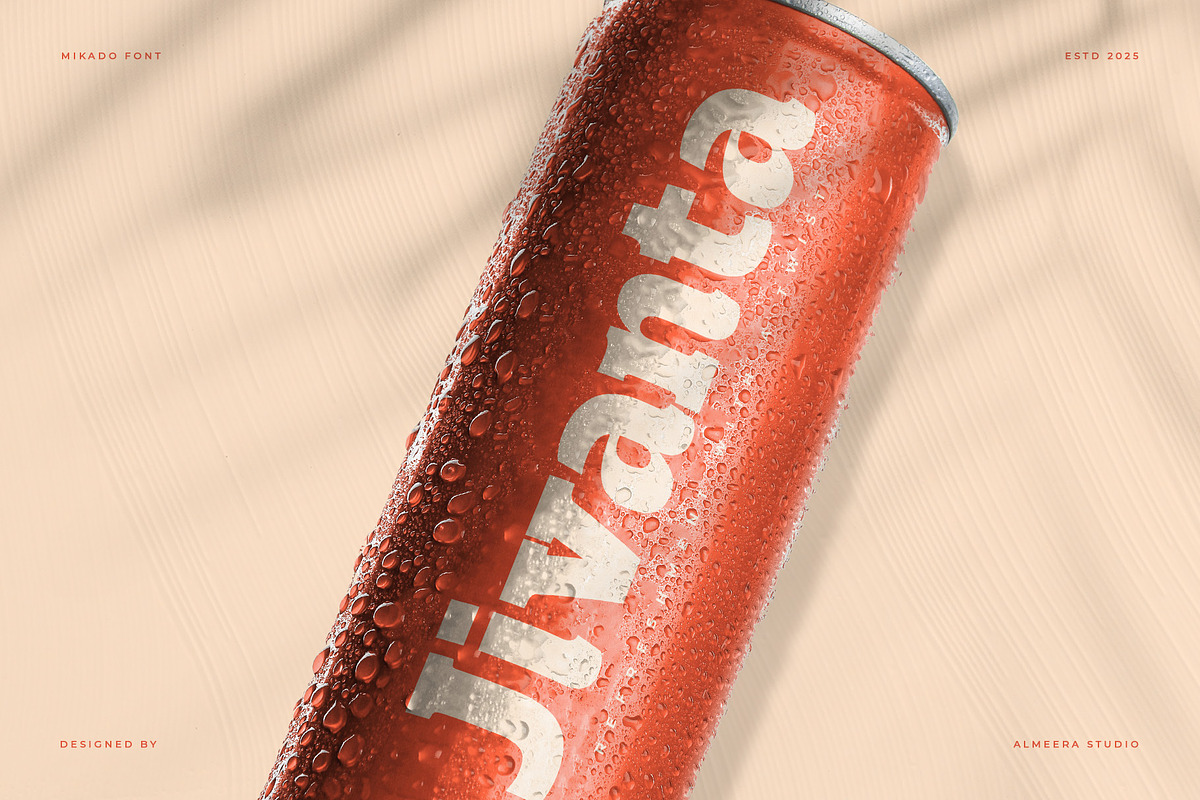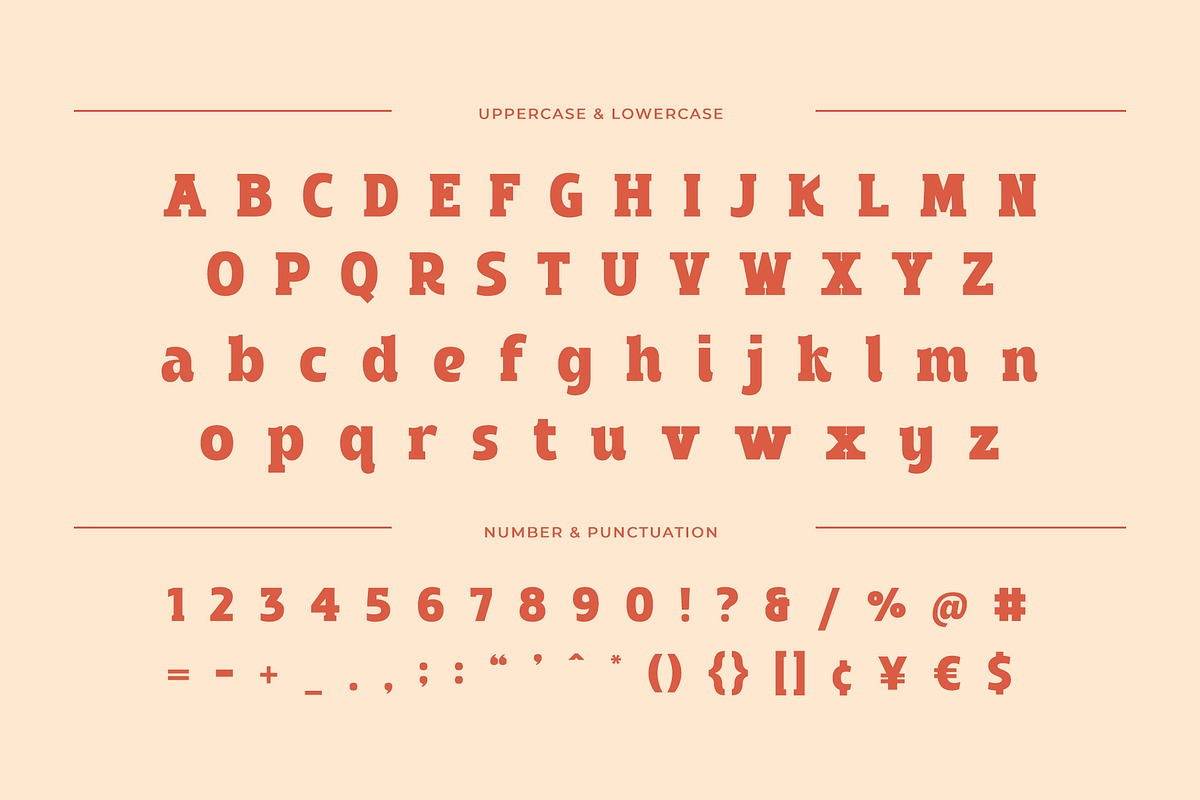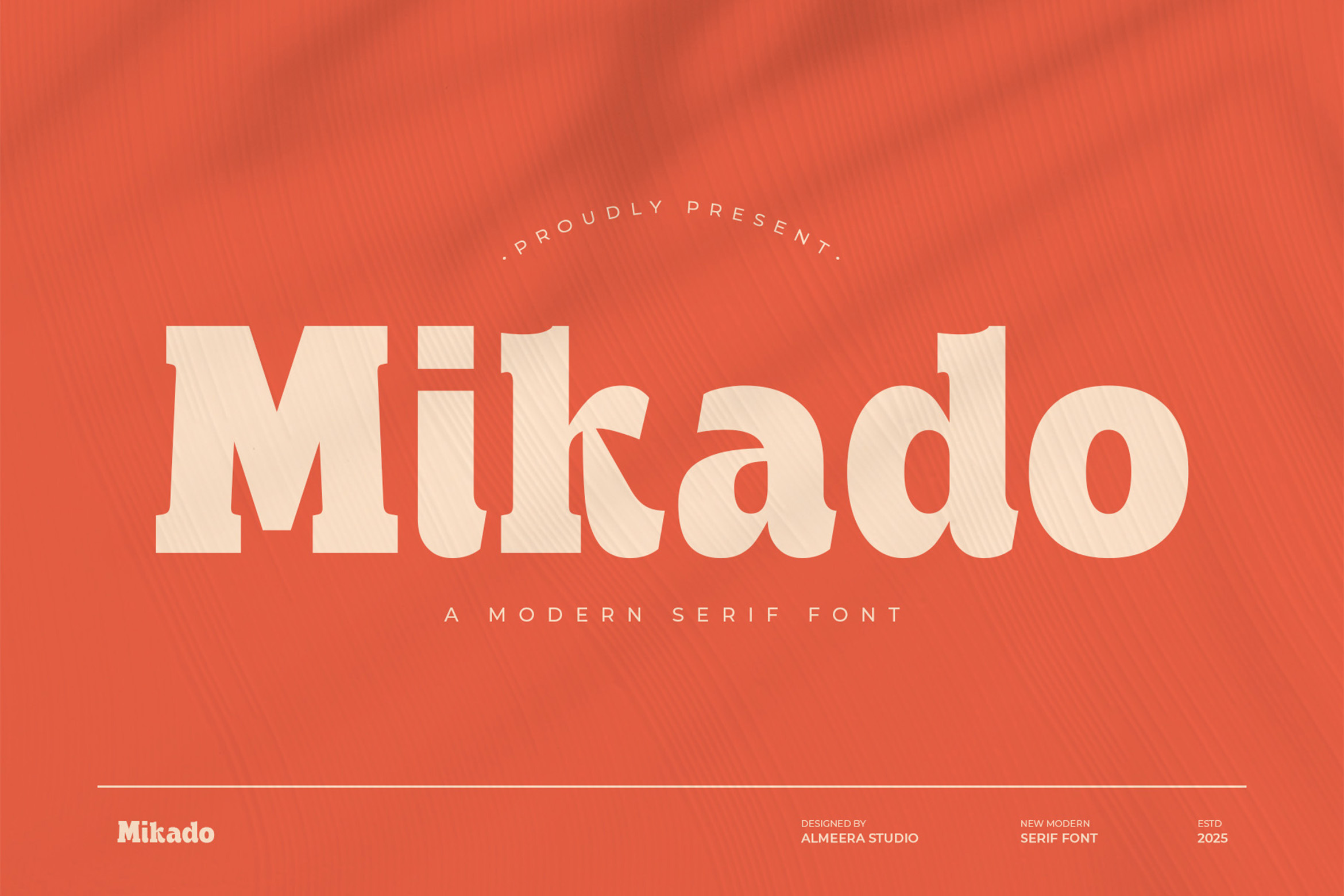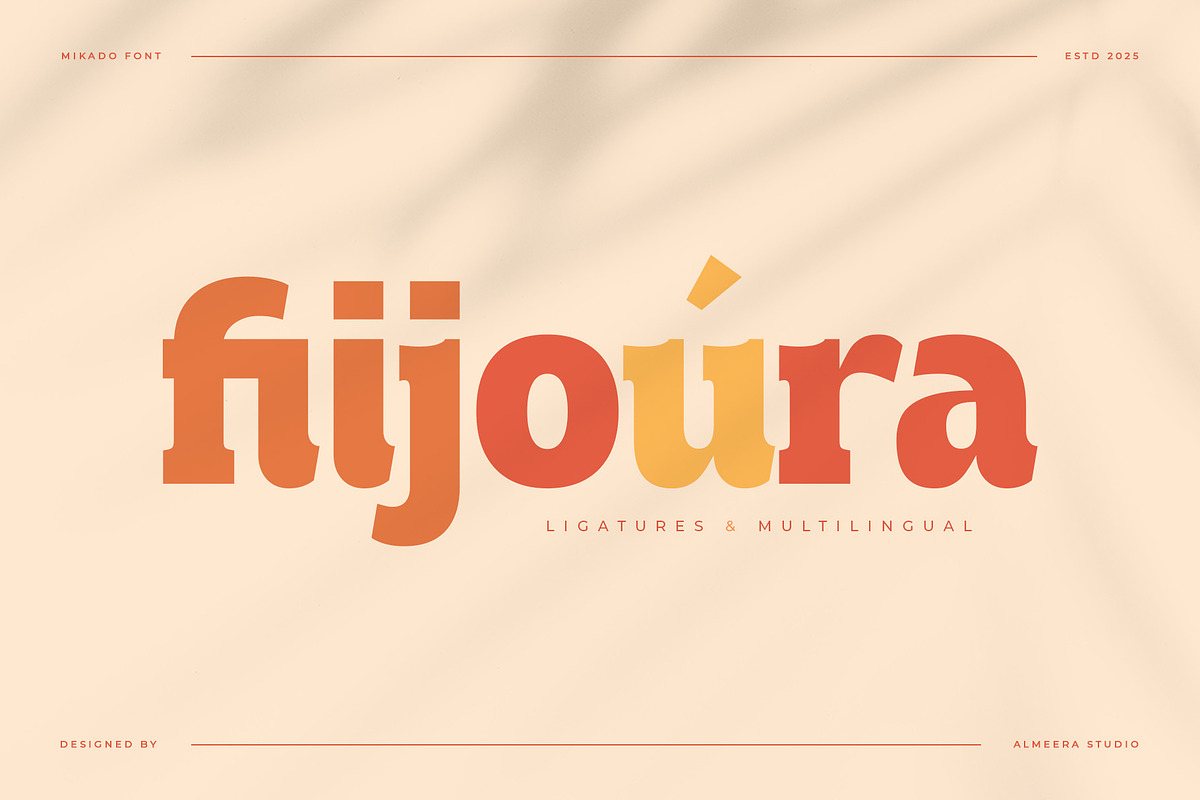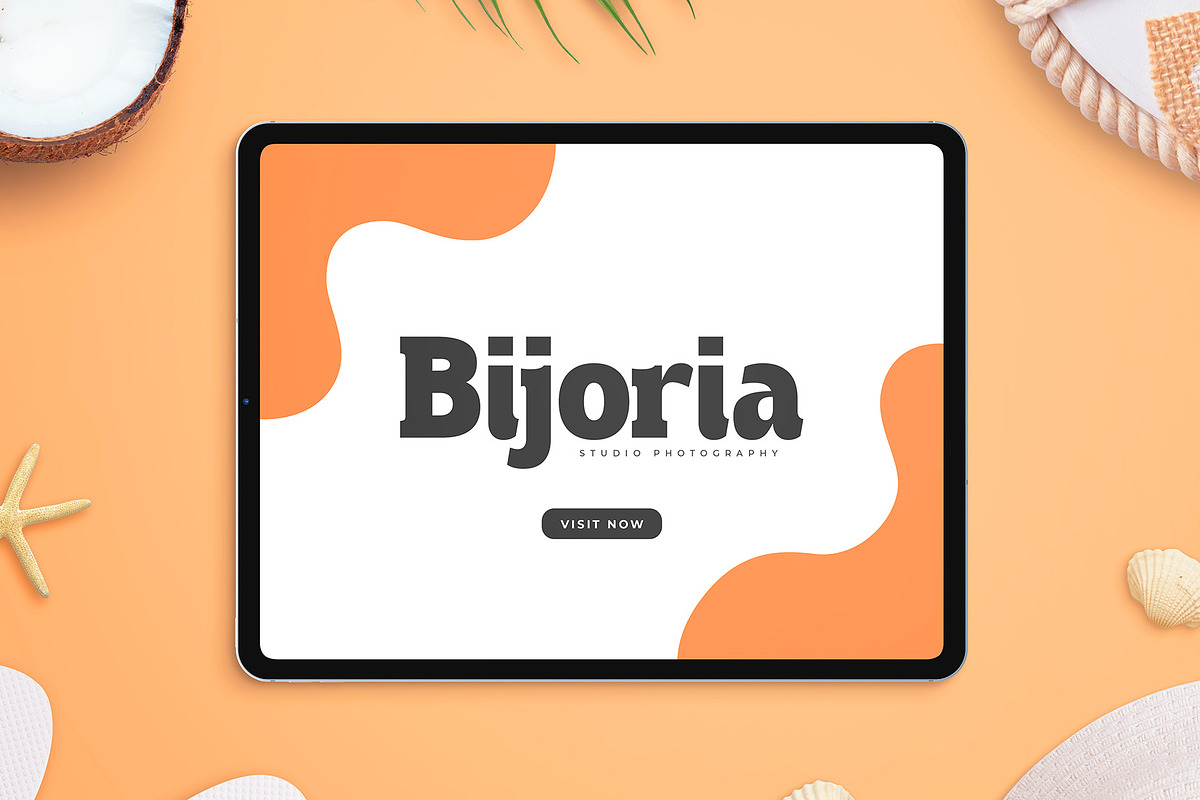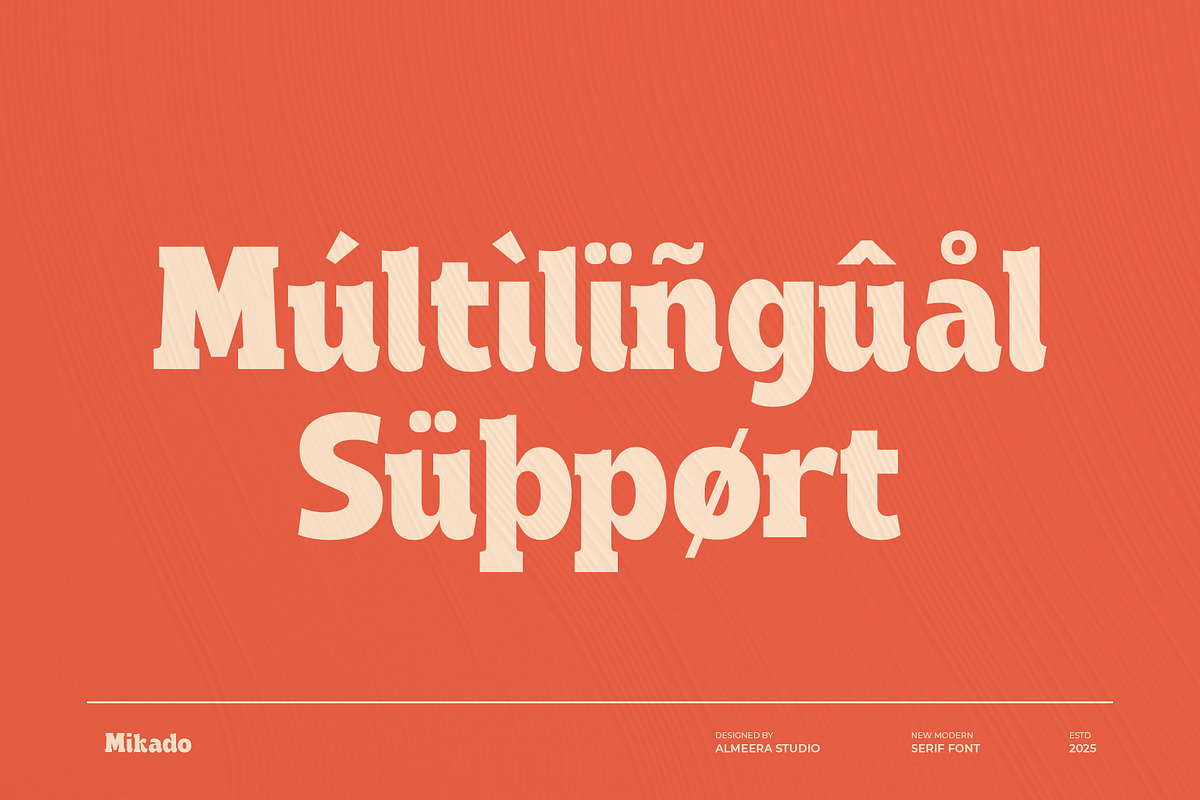
Mikado – Modern Serif Font
Mikado is a bold and confident modern serif font that blends classic charm with contemporary edge. With its high contrast strokes and geometric proportions, Mikado is ideal for editorial headlines, branding, and packaging that demand attention with a timeless appeal. Its strong presence adds sophistication to any design without sacrificing readability.